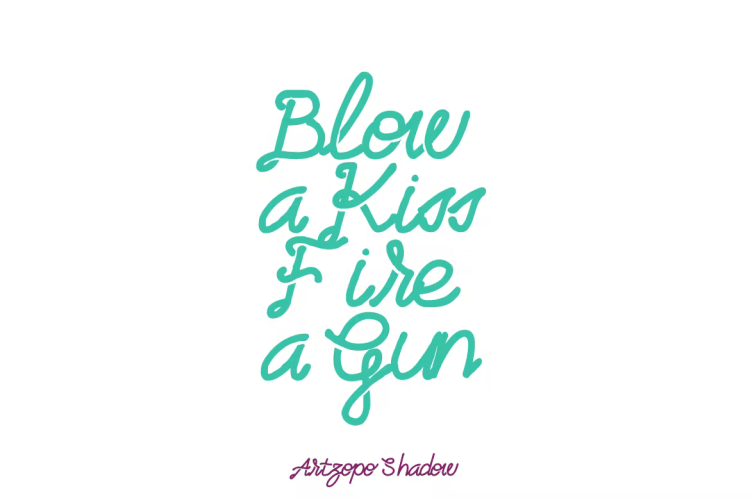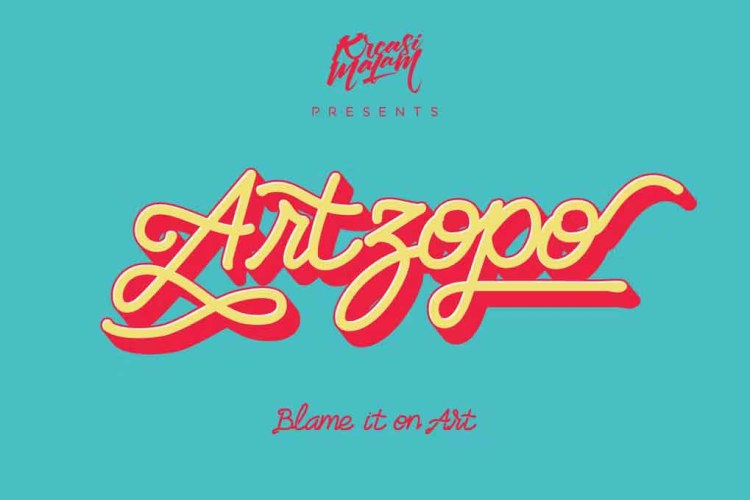
Artzopo Font
Artzopo Font a handmade font with open type feature would be awesome for your design projects. It could be fitted for logos, quotes, t-shirts, posters or anything.
Available in uppercase, lowercase, numerals and punctuations.
Where Artzopo Font works best
A short phrase in Artzopo Font carries warmth that a typeset sans cannot fake; keep the rest of the card plain.
Chalkboard-style headings in Artzopo Font make a menu feel hand-made. Keep the dish descriptions in a simple face so prices stay readable.
One line of Artzopo Font over a photo is enough; the script carries the tone and the caption does the work.
What kind of work does Artzopo Font suit?
It sits in the Script And Handwritten group and reads as branding, handwritten, professional, script. That makes it a candidate wherever those qualities help: headings, packaging, social graphics and brand work. Set it at the size you plan to use before deciding.